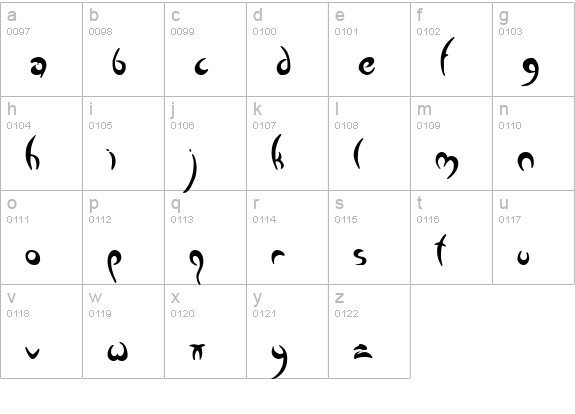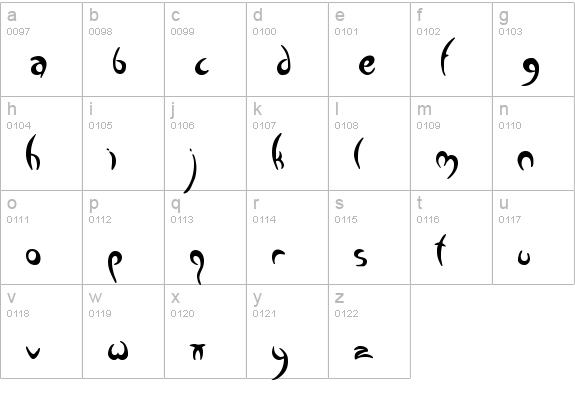
Greenman Font Details
Greenman font is a charming and versatile typeface that brings a touch of nature and elegance to your design projects. With its organic and flowing shapes, Greenman is perfect for creating eye-catching typography for a wide range of applications. Whether you are designing a logo, poster, or branding materials, this font will add a unique and natural flair to your work. What makes Greenman font even more appealing is that it is available for free download at FontsMarket.com. You can easily access and use this beautiful font in your projects without any cost. Embrace the beauty of nature with Greenman font and elevate your designs to a whole new level.